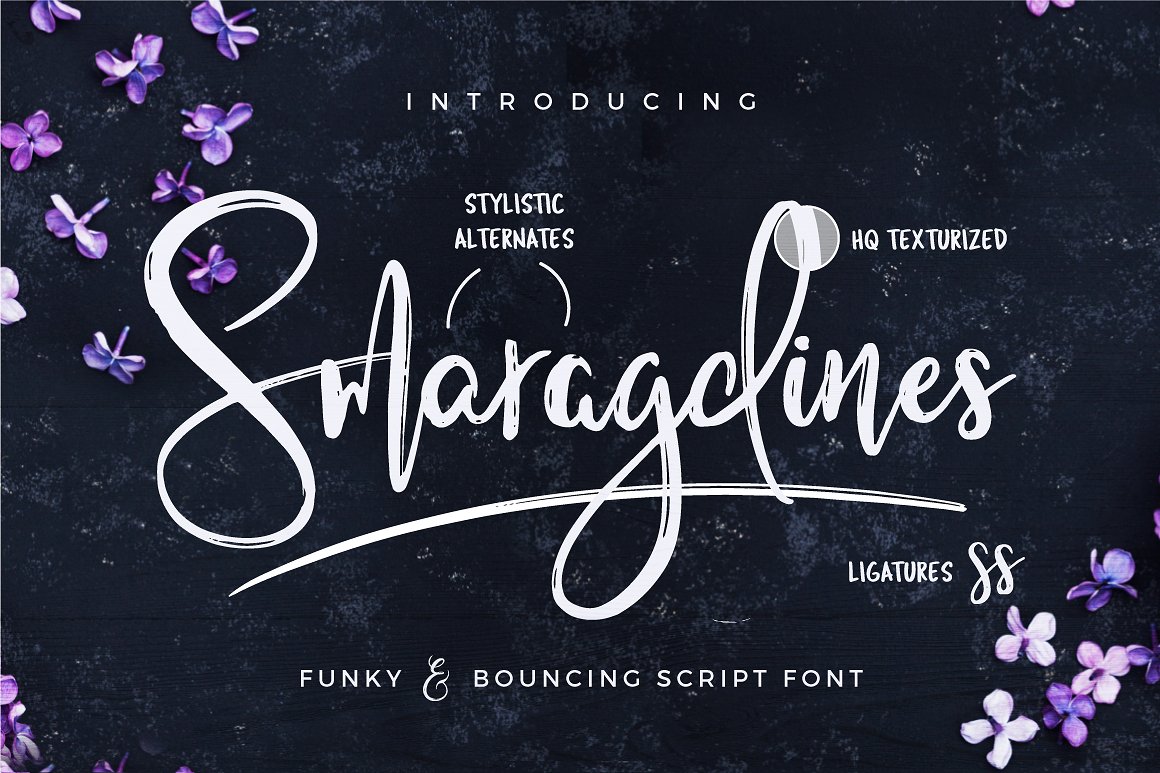
Smaragdines Script Font
Smaragdines – Handwritten upper and lowercase characters, numerals, punctuations and a wide language support. Extra ligatures for more complex letter-combinations like tt and ll. Including both, OTF and TTF filetypes.
| Classification: | Brush Fonts, Handwritten Fonts, Script Fonts |